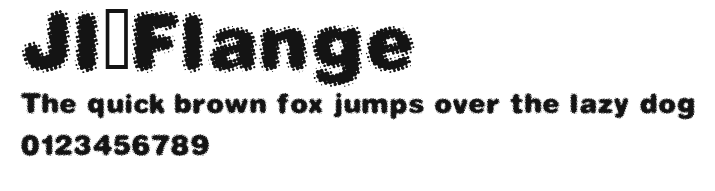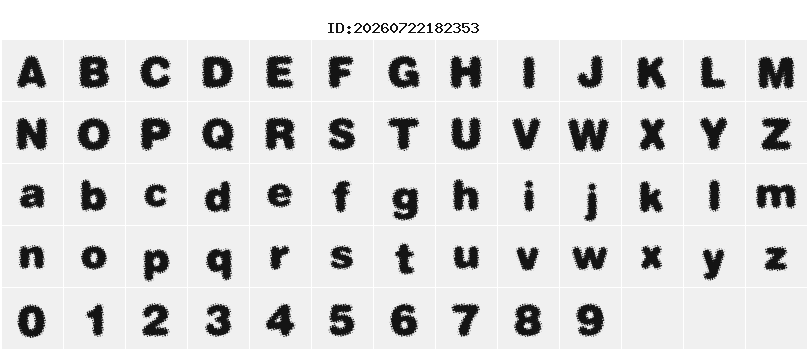
JI-Flange Preview
• Font Name: JI-Flange
• Full Font Name: JI-Flange
• PostScript Name: JI-Flange
• Designer: JupiterImages
About JI-Flange.ttf
JI-Flange.ttf is a modern, elegant sans-serif font designed for ultimate readability and visual harmony. Perfect for branding, headlines, web design, and print materials.